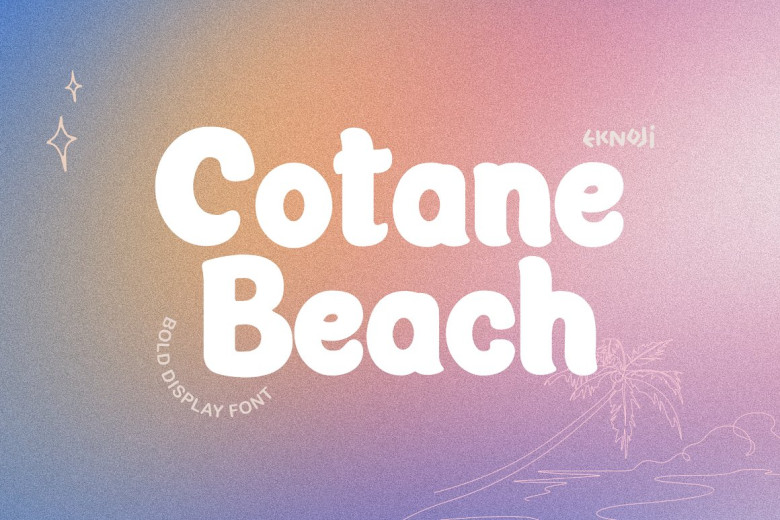
Cotane Beach Font
Cotane Beach showcases bold fonts in an inviting and eye-catching manner, making this font an excellent addition to any collection of fonts.
Cotane Beach Display Font